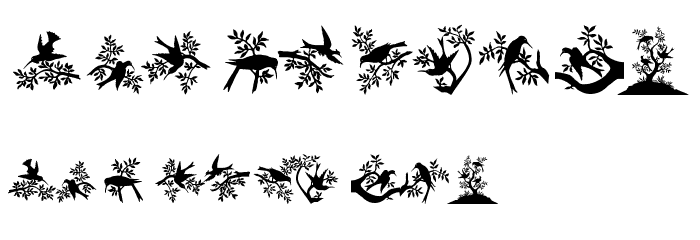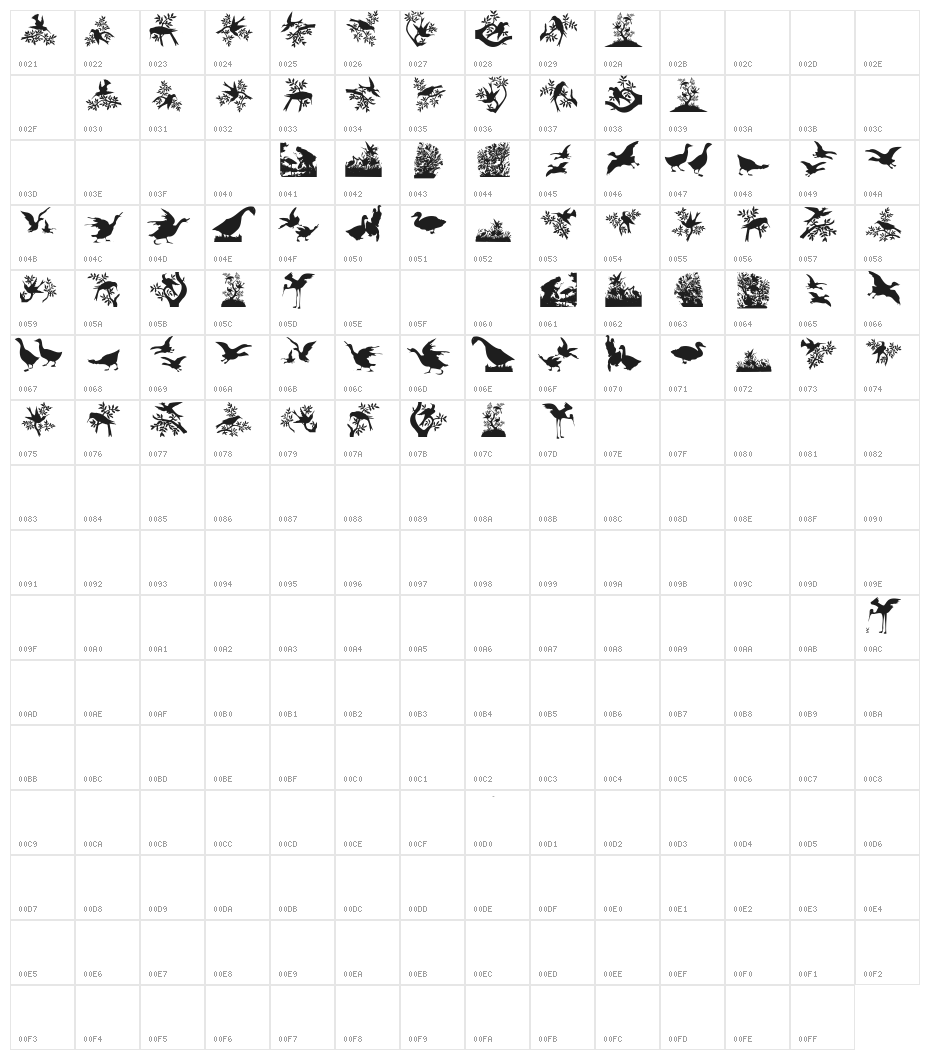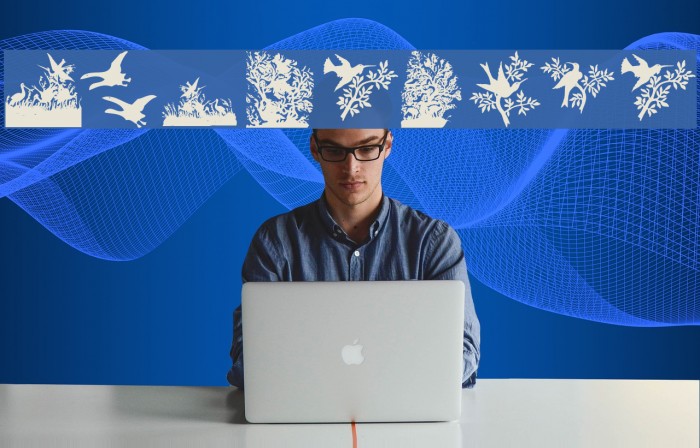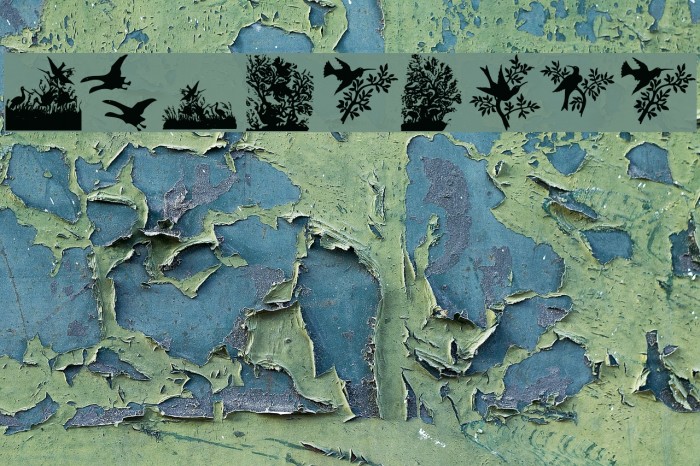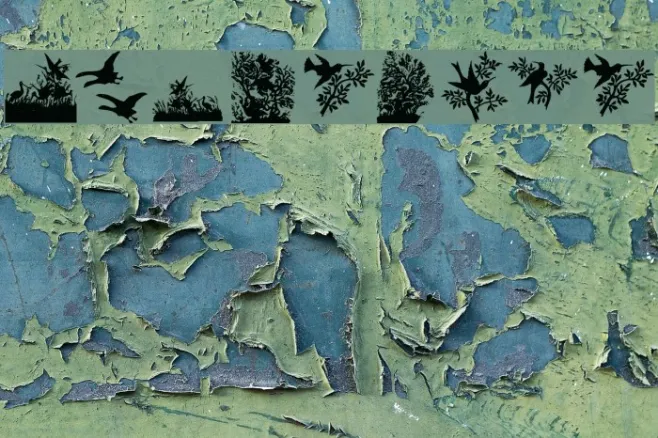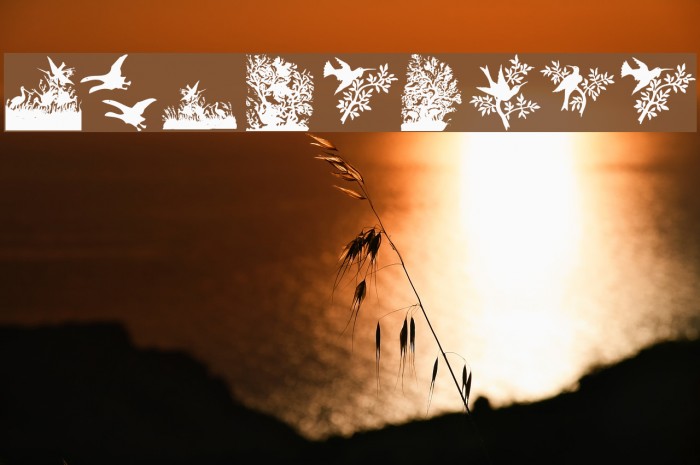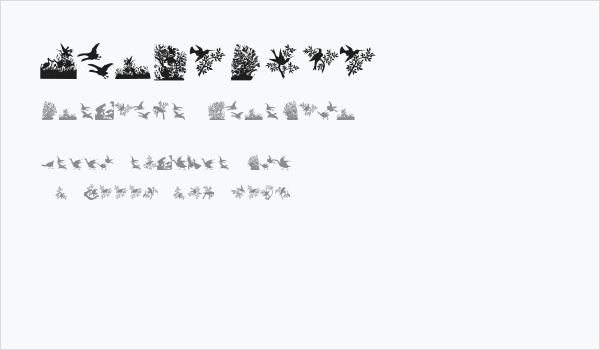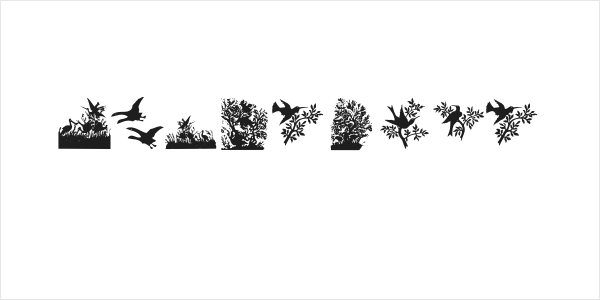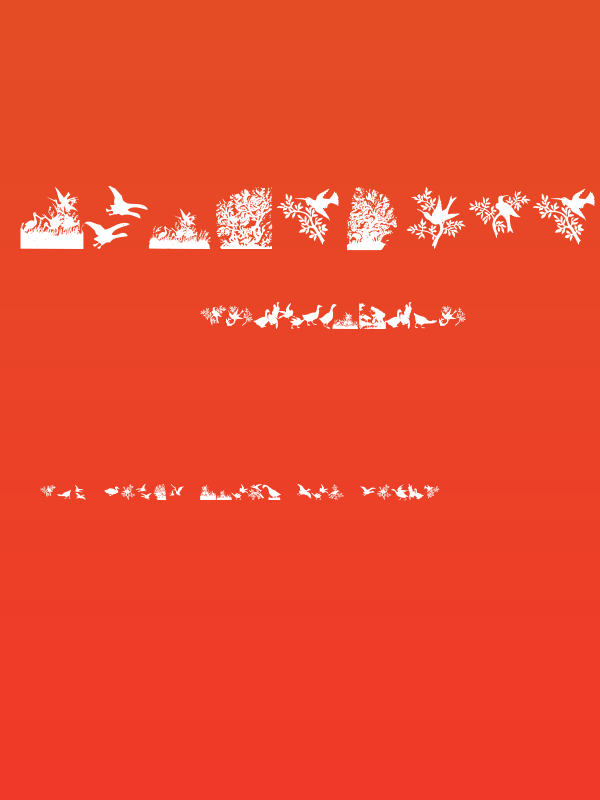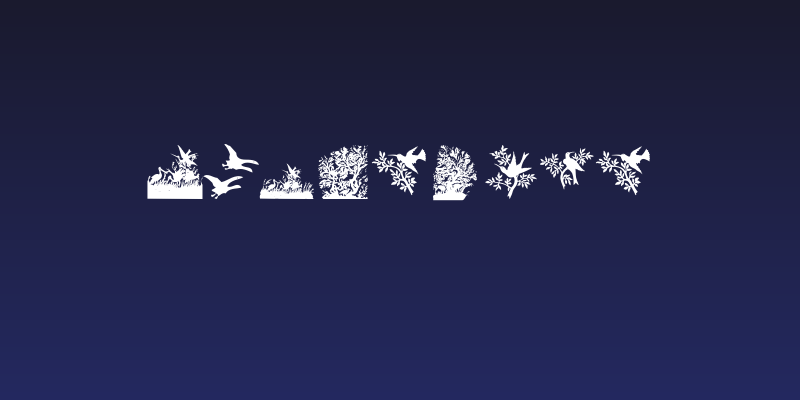
BirdsCuts Font
BirdsCuts Description
A decorative display typeface featuring intricate silhouettes of birds, foliage, and natural scenes, with each character represented by a unique cutout illustration rather than traditional letterforms.
| Overall Style | Decorative, Nature-inspired |
| Use Case | Logos, Headlines, Themed graphics, Crafts |
| Proposed Projects | Nature-themed invitations, wildlife posters, scrapbooking, decorative headings, childrenΓ’β¬β’s book covers. |